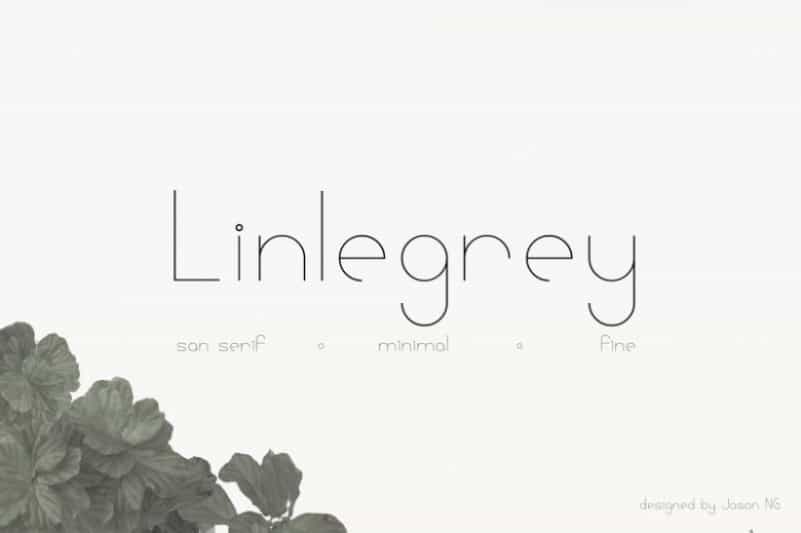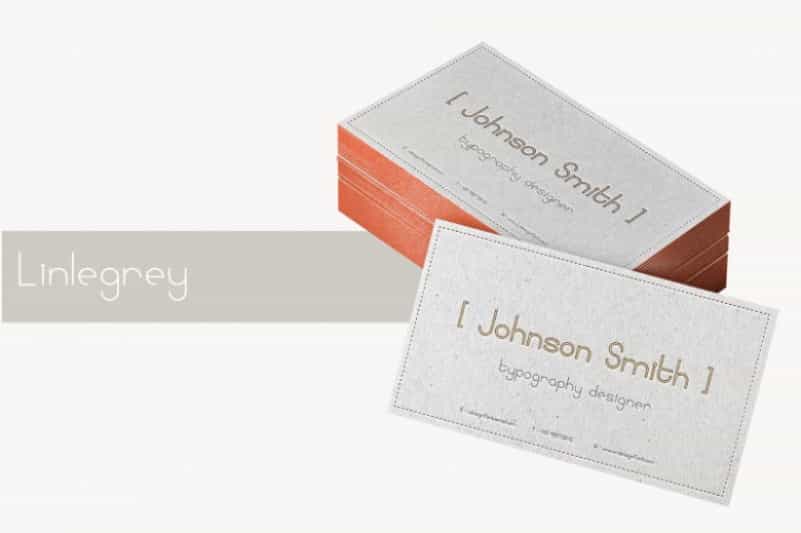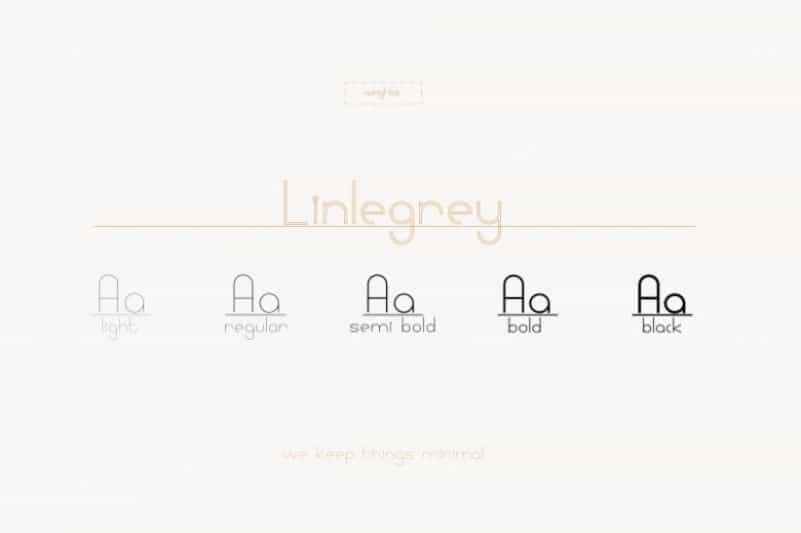
Linlegrey is a gorgeous mid-century modern typeface with thin lines, sharp corners and five in weight. Linlegrey is a highly useful font, ideal for logos, weddings invitations, quotes, advertisements, print, magazine and many other uses!